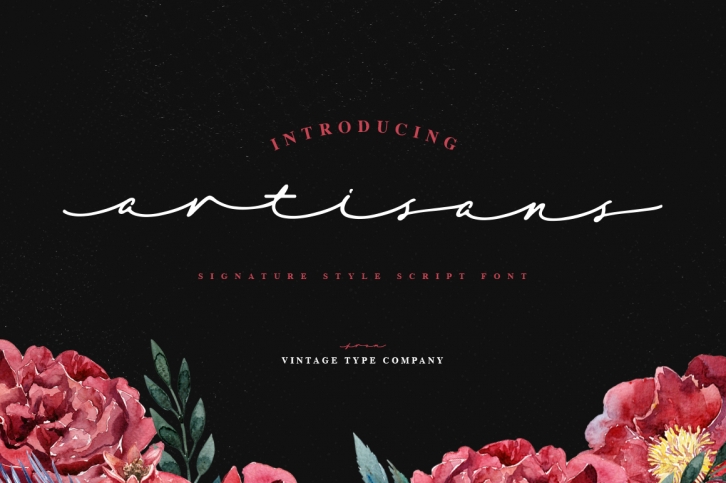
Artisans Script is a great font that was designed by Vintage Type Co.. Imagine the amount of combinations you can create using this font! The archive is 4.57 MB and it was released on August 30, 2017. Artisans Script looks beautiful on wedding invitations, greeting cards, logos, posters, labels, t-shirt designs, logos, business cards and is perfect for use in ink or watercolor works, fashion, magazines, packaging and food menus, children's books and more!